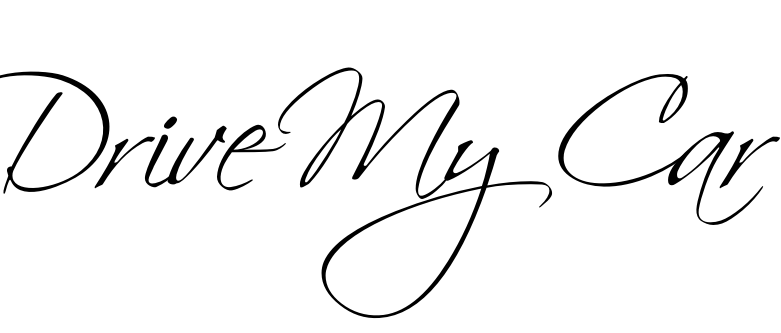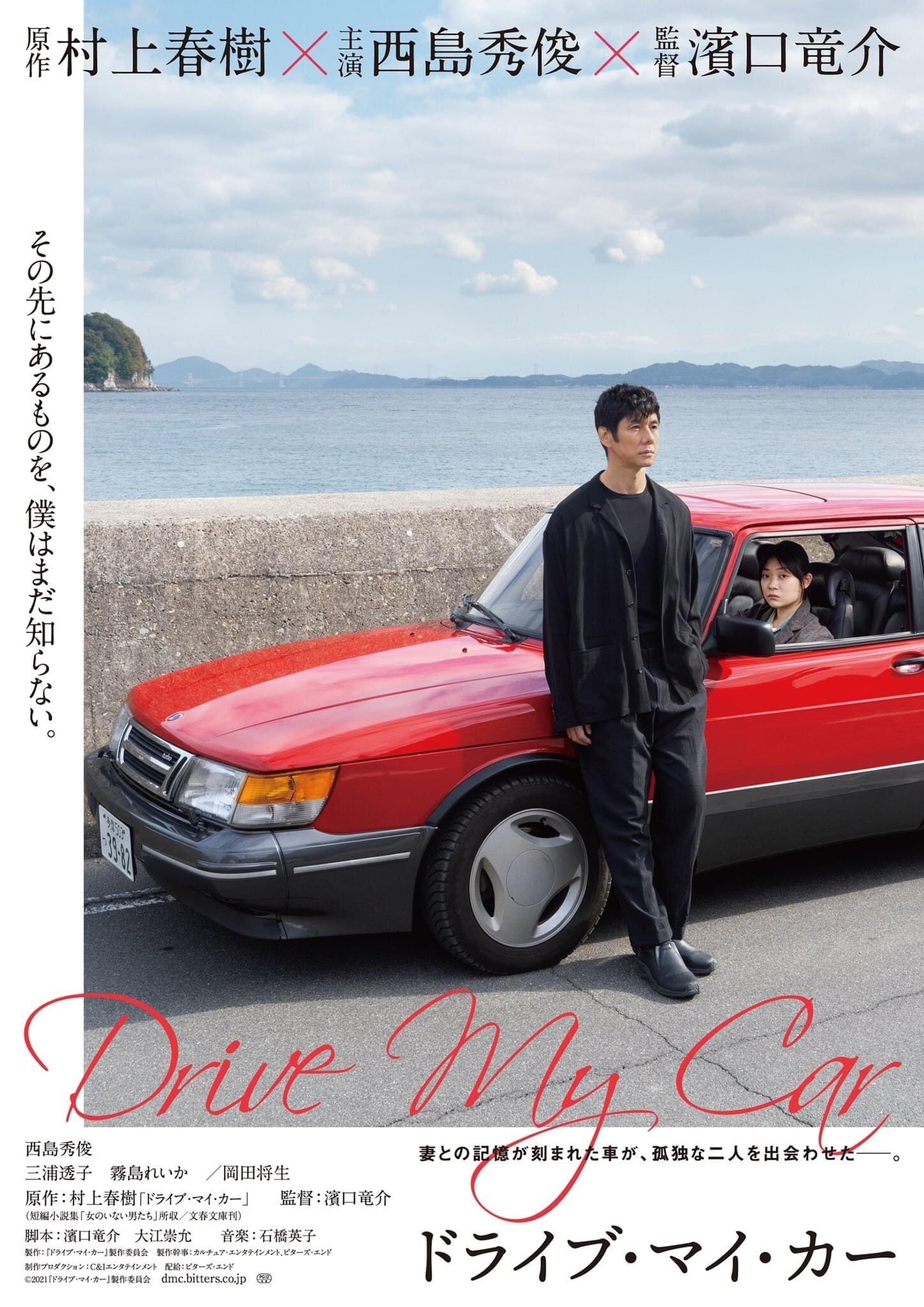
Drive My Car Font
DramaDrive My Car is a Japanese road film directed by Ryota Nakano and released in 2016. It follows the story of a struggling actor who becomes a chauffeur for a successful author and their journey together.
The English title of the movie features a script font known as Scriptina Pro, designed by CheapProFonts and available for free download from the Fonts Used Section. The Japanese title seems to be written in Ten Mincho, a typeface designed by Ryoko Nishizuka.